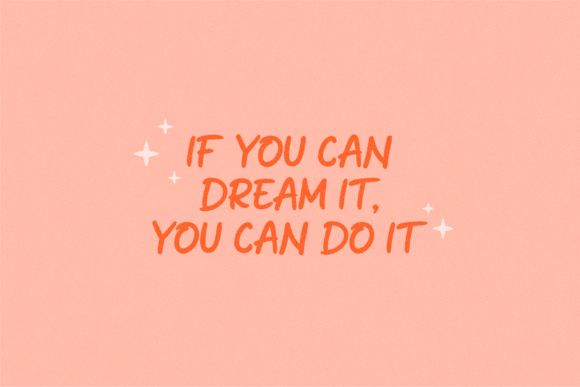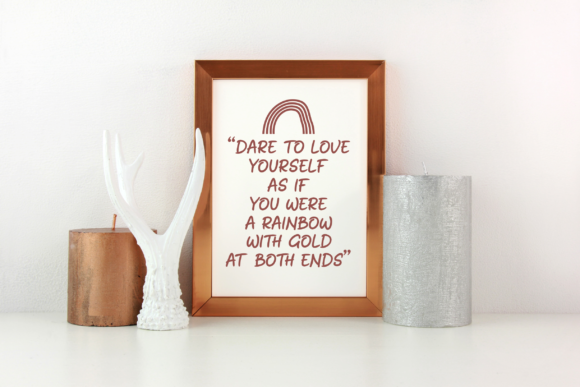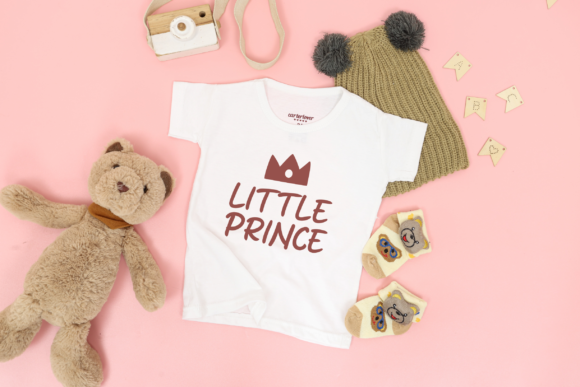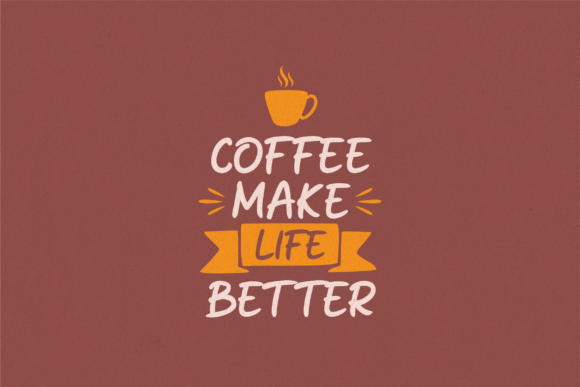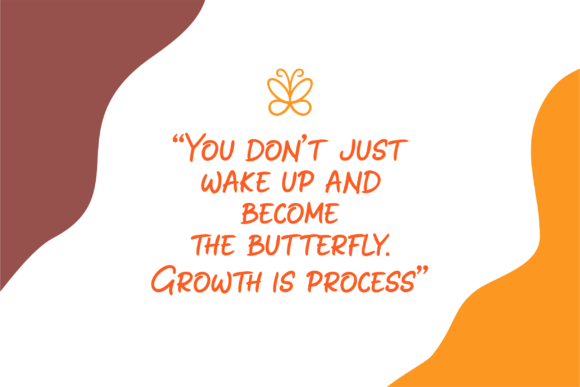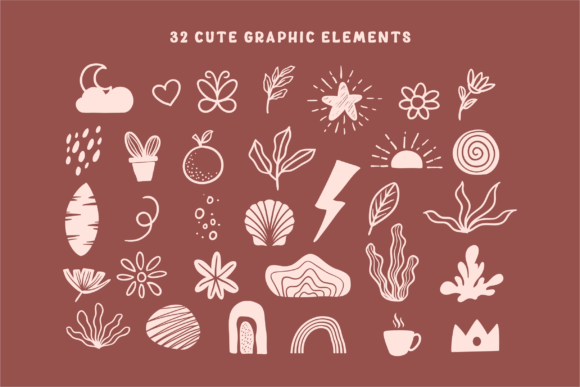
Introduction to Satru a Handmade Playful Display Font Font
Have you ever been working on a creative project and felt like something was missing – a spark, a dash of personality, a unique touch that sets it apart from the rest? That’s where Satru a Handmade Playful Display Font Font comes in – a game-changing design resource that’s sure to elevate your next project to new heights.
As a designer, you know how crucial it is to have access to high-quality, versatile design elements that can help you convey your message and capture your audience’s attention. Satru font is more than just a font – it’s a toolkit for creativity, offering effortless design strokes, multilingual support, and a range of bonus graphic elements that can be used to enhance your work. With its free download and transparent background, you can seamlessly integrate Satru into your next creative project and take it to the next level.
Key Features of Satru a Handmade Playful Display Font Font
- High-quality, unique design with a playful and handmade feel, perfect for creative projects.
- Designed to be used for display purposes, making it ideal for headings, titles, and other prominent text elements.
- Features a large character set, including uppercase and lowercase letters, numbers, and punctuation marks.
Honest Review: Satru a Handmade Playful Display Font Font
As a designer, I’m always on the lookout for high quality design resources to elevate my creative projects. I recently stumbled upon the Satru a Handmade Playful Display Font Font, and I must say it’s been a game-changer.
What works well about this font is its unique, handmade aesthetic that adds a touch of whimsy to any design. The transparent background option allows for seamless integration with other design elements, making it a valuable resource for any creative project.
- ✨ Unique, handmade aesthetic that adds a touch of whimsy to any design
However, I do have a few limitations to note: ⚠️ The font may not be suitable for formal or corporate designs, and the characters may not be as extensive as some other fonts in the market.
Overall, I’m thoroughly impressed with the Satru a Handmade Playful Display Font Font. Its high quality and versatility make it an excellent design resource for any creative project, from personal branding to advertising campaigns.
Tips for Getting the Most Out of Satru a Handmade Playful Display Font Font
For optimal results, use Satru a Handmade Playful Display Font Font in conjunction with bold, eye-catching graphics and a clear, easy-to-read layout. Experiment with different font sizes, colors, and arrangements to create a unique and engaging design. Additionally, consider pairing Satru a Handmade Playful Display Font Font with other creative fonts to add depth and interest to your design.
Satru a Handmade Playful Display Font Font is perfect for a variety of creative projects, including social media graphics, posters, flyers, and advertisements. Its playful, handwritten style makes it ideal for capturing attention and conveying a sense of fun and energy. Whether you’re designing for a personal project or a professional client, Satru a Handmade Playful Display Font Font is a valuable design resource that’s sure to deliver high-quality results.